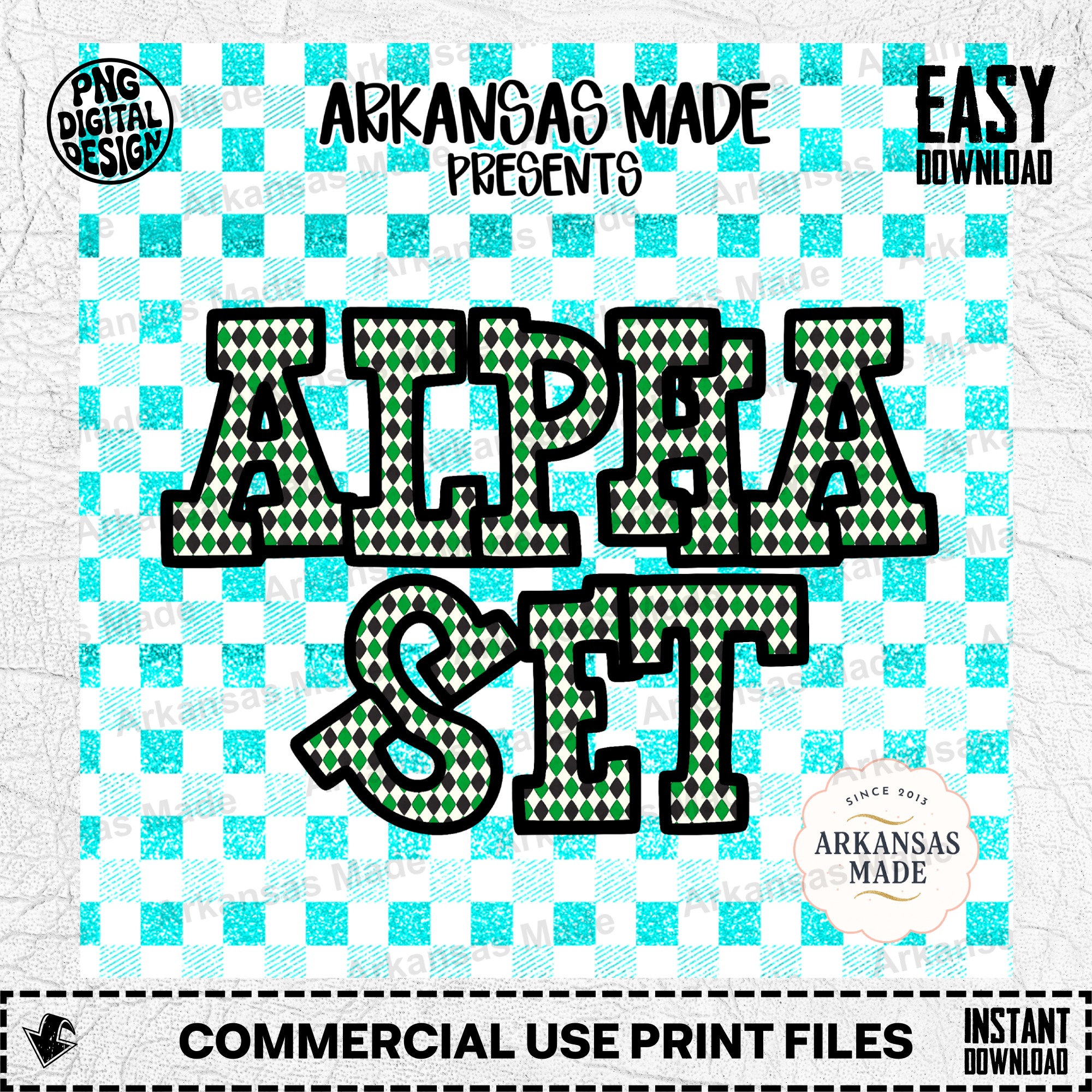
Green Argyle Alpha PNGs Set | Black Diamond Pattern Alphabet Letters Digital Download | Varsity Collegiate Font Clipart Crafters
Elevate your designs with this vibrant Green Argyle Alpha PNG Set! Featuring bold diamond pattern alphabet letters, perfect for digital downloads. This varsity collegiate font clipart is ideal for crafters, small businesses, and DIY enthusiasts. Create stunning apparel, personalized gifts, team spirit items, or unique school projects. An instant download for all your creative graphic design needs!